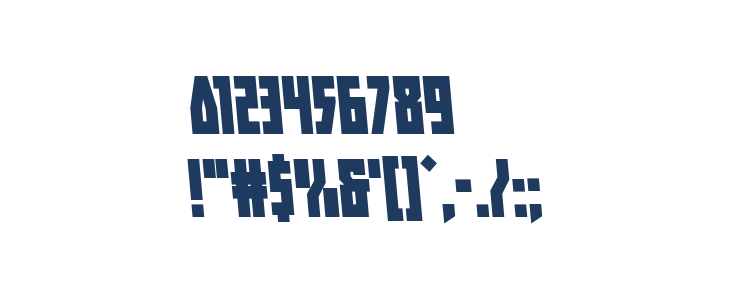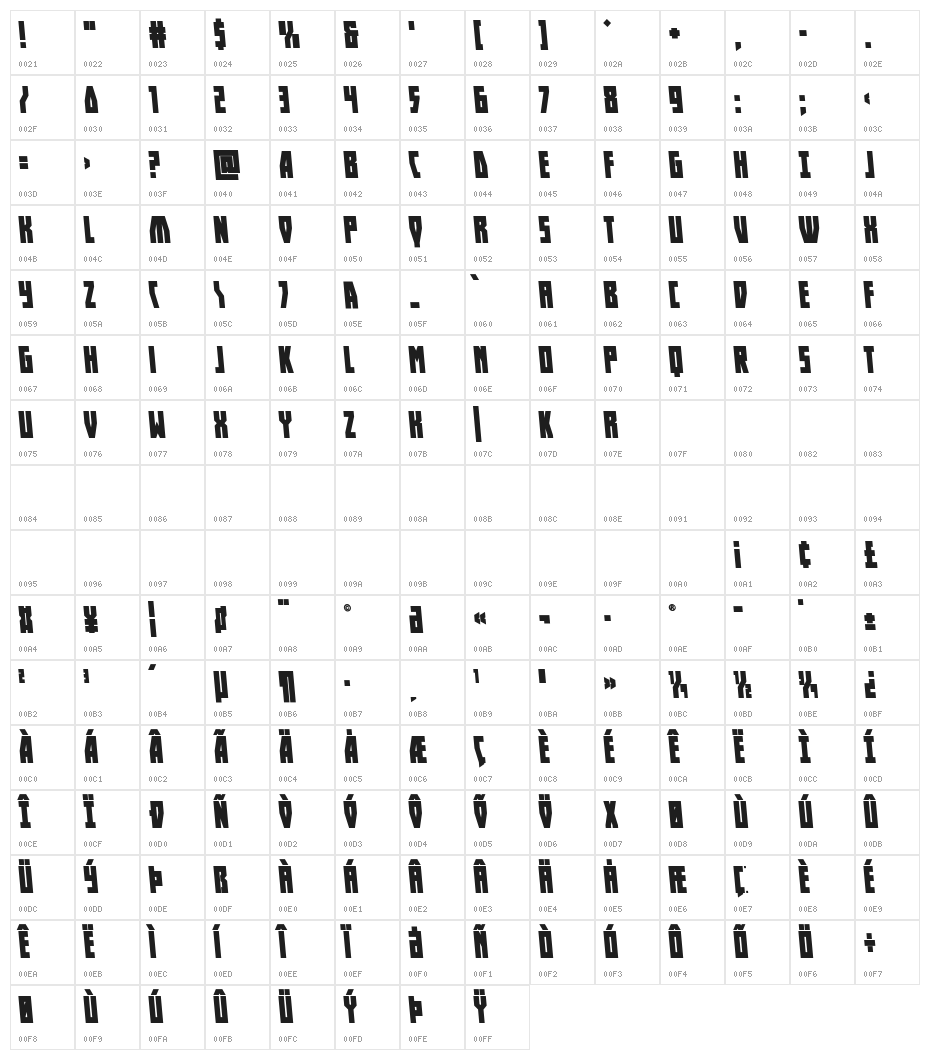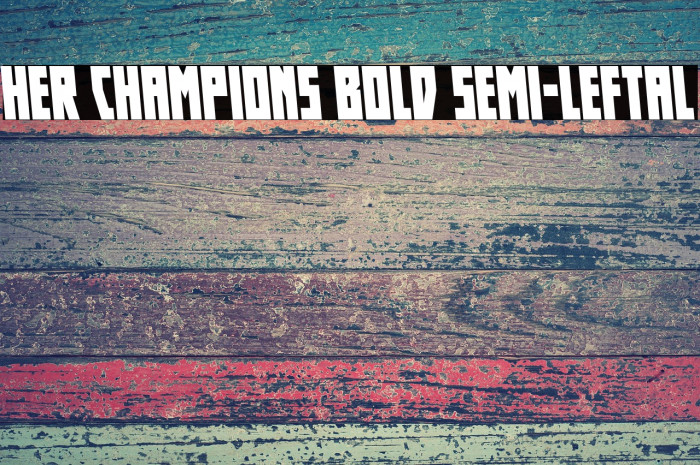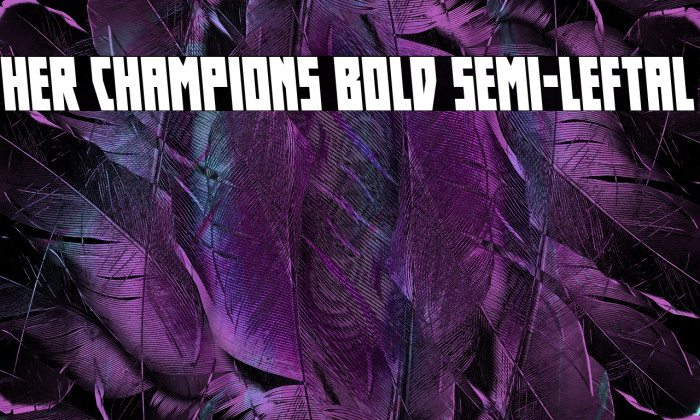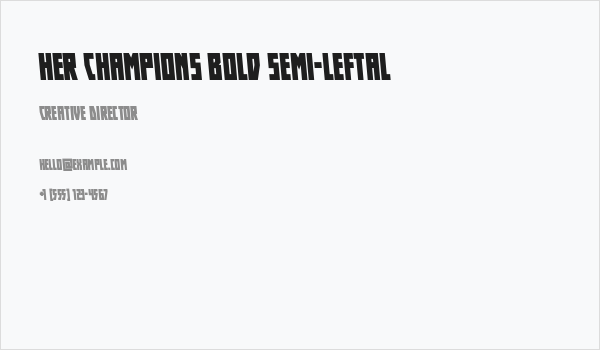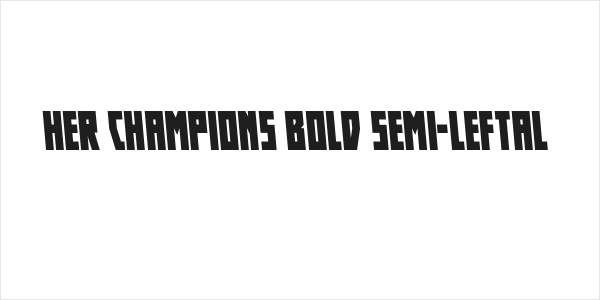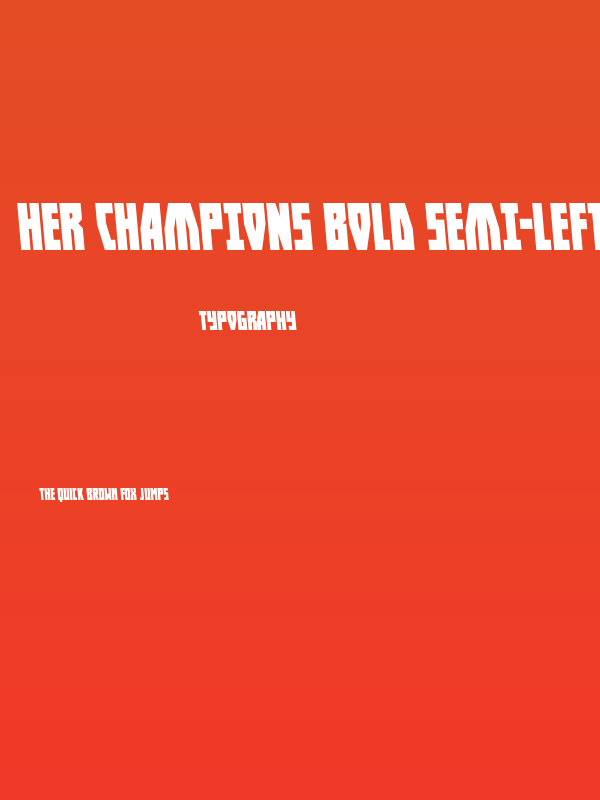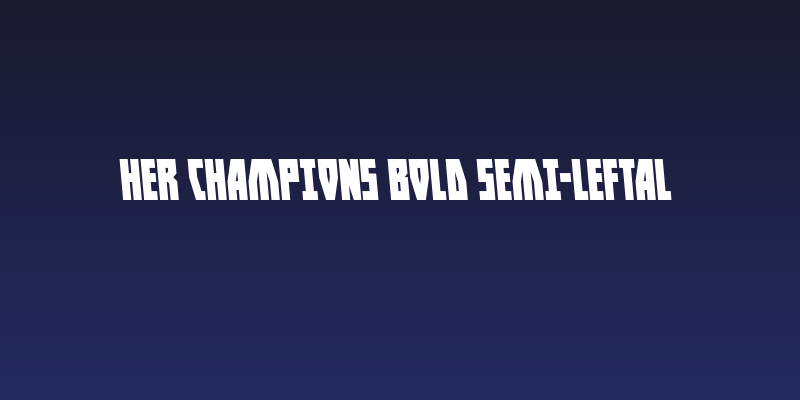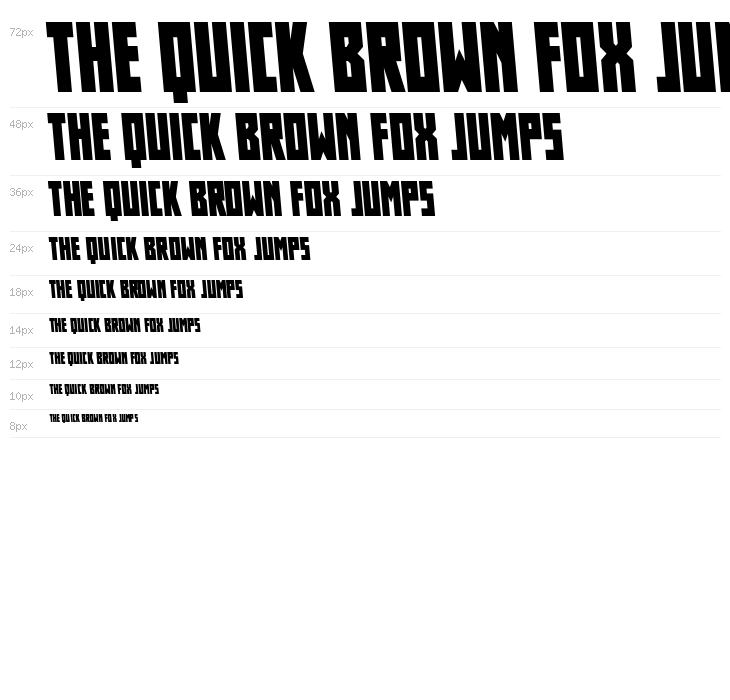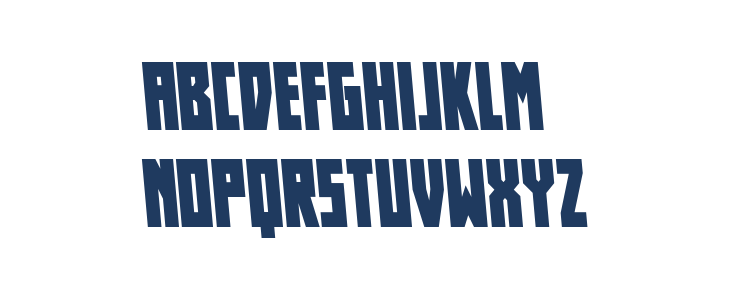
Her Champions Bold Semi-Leftal Font
Her Champions Bold Semi-Leftal Description
This bold and striking font features a geometric and angular design, characterized by its thick, block-like letters. The uppercase and lowercase letters share a consistent style, with sharp edges and a slightly condensed form. The numbers and special characters maintain this bold aesthetic, making them stand out prominently. The font's unique style is both modern and assertive, suitable for making a strong visual impact. Its high contrast and solid structure make it ideal for attention-grabbing headlines and titles.